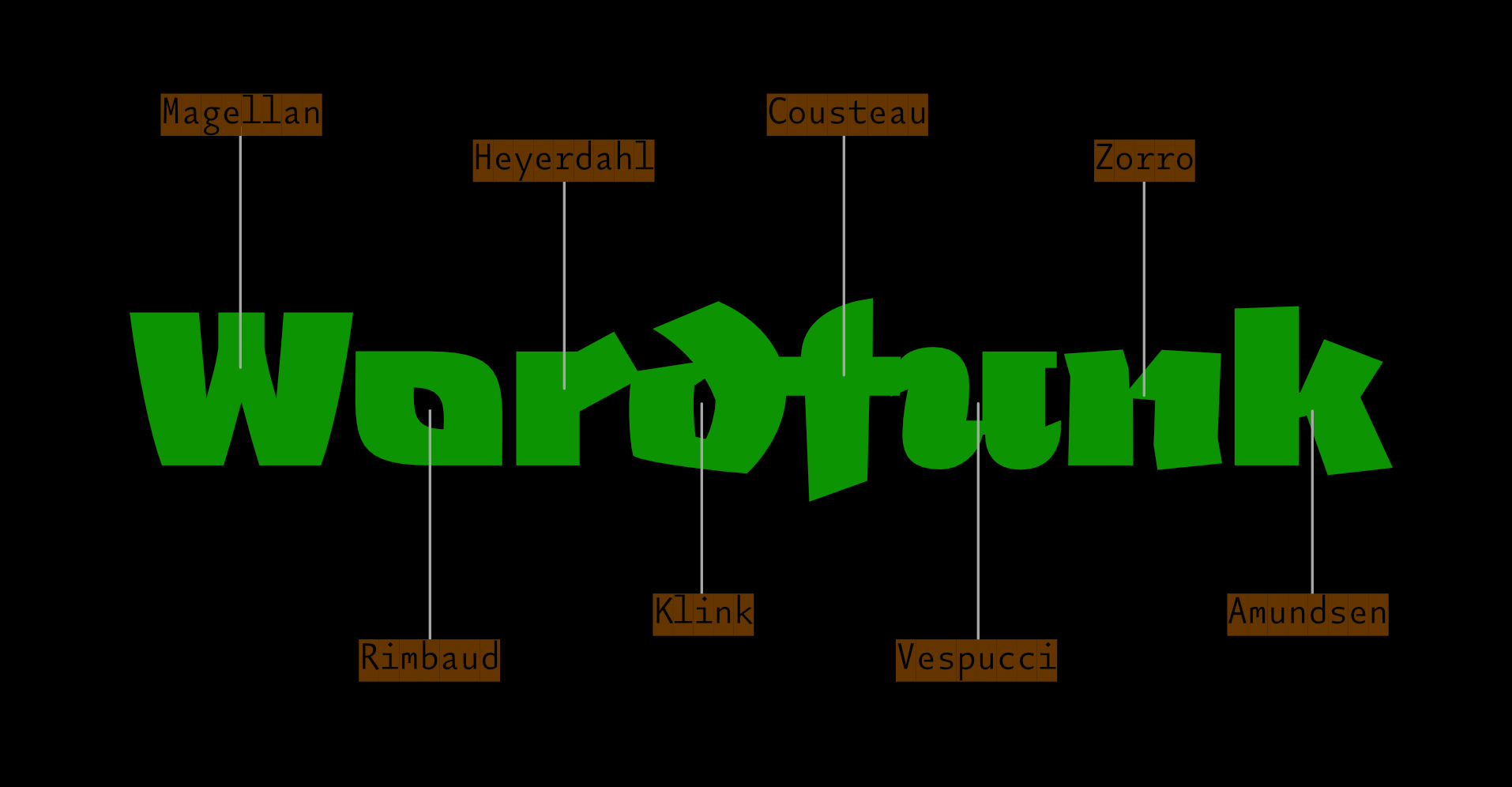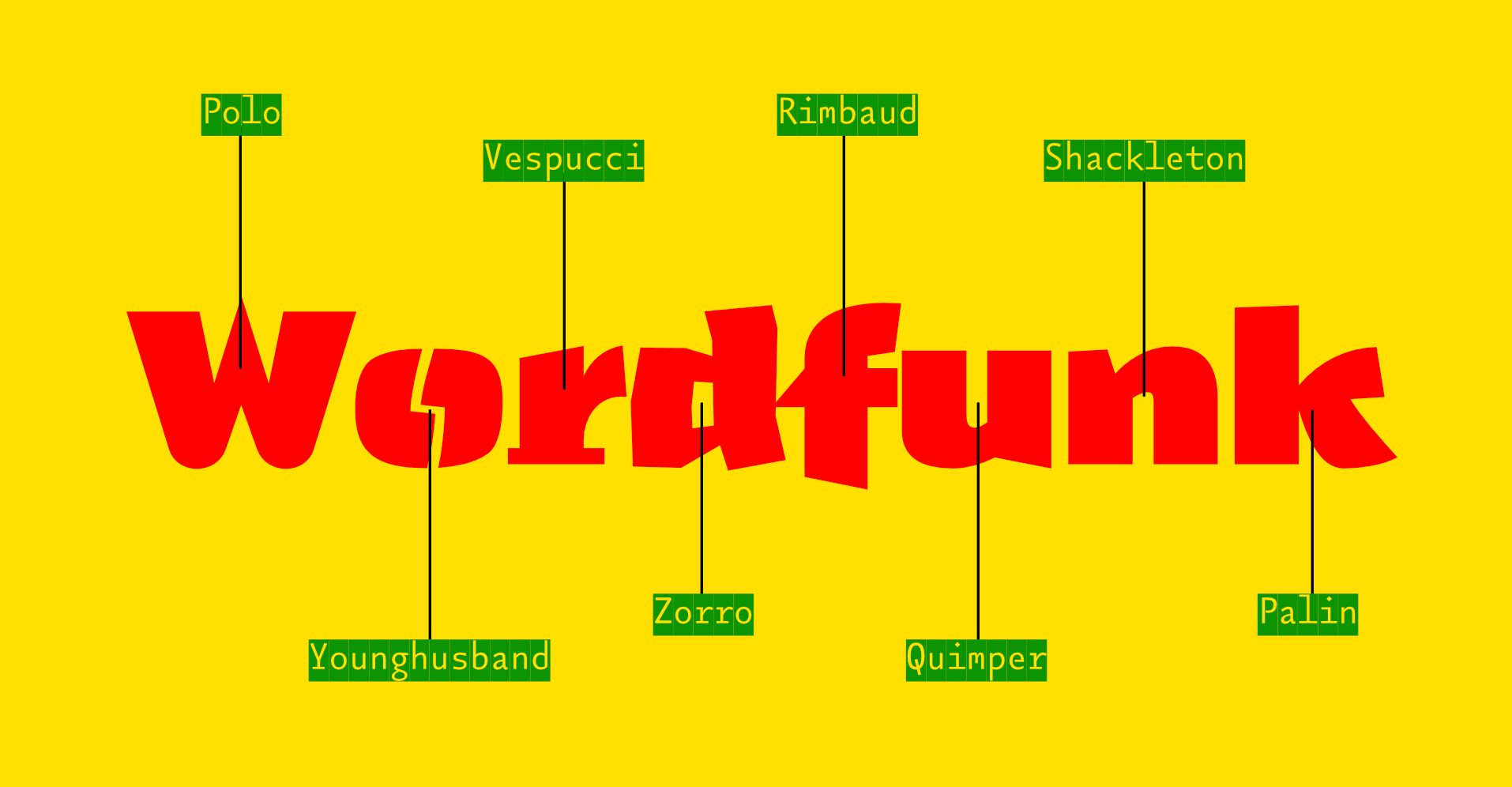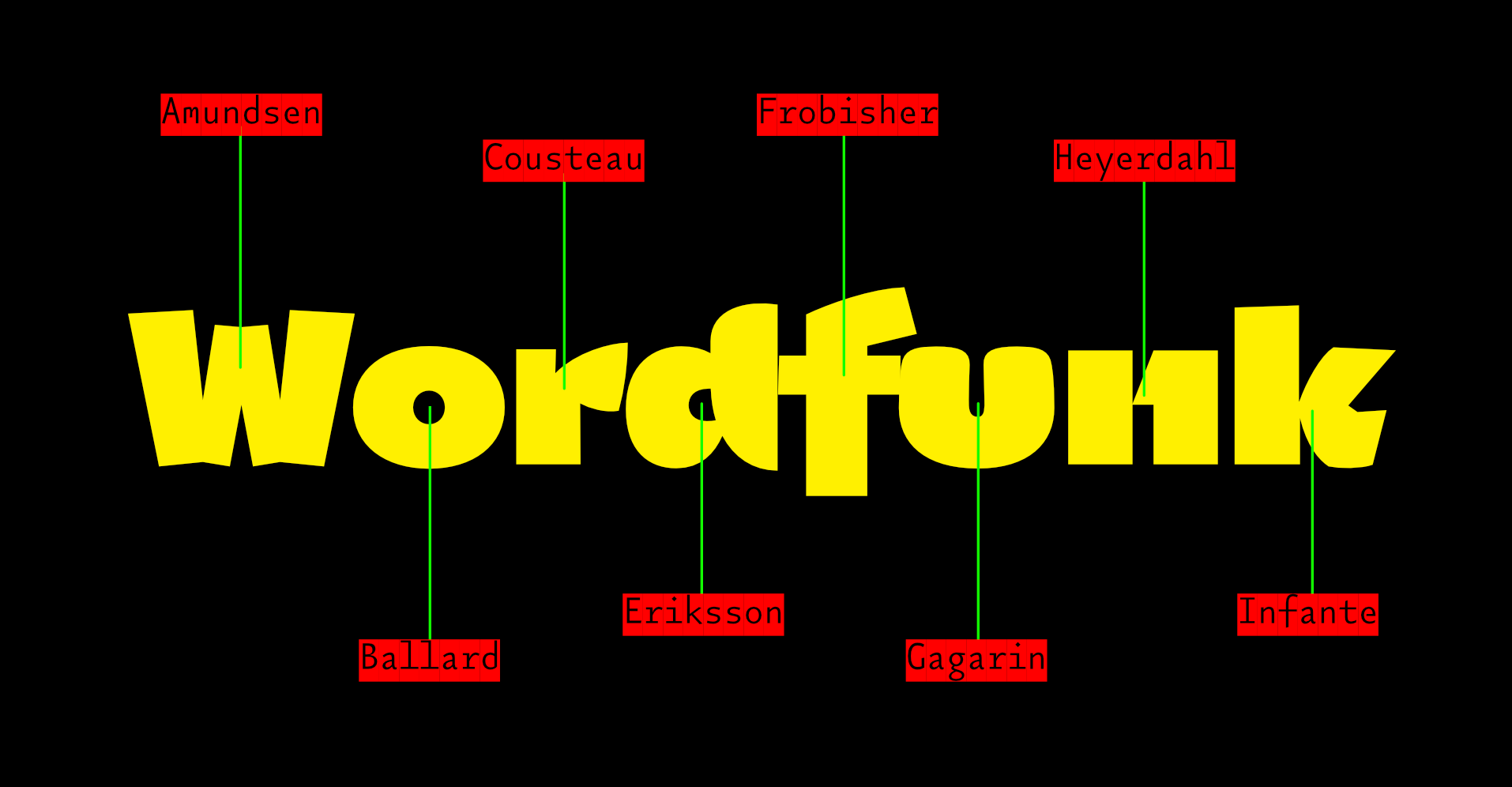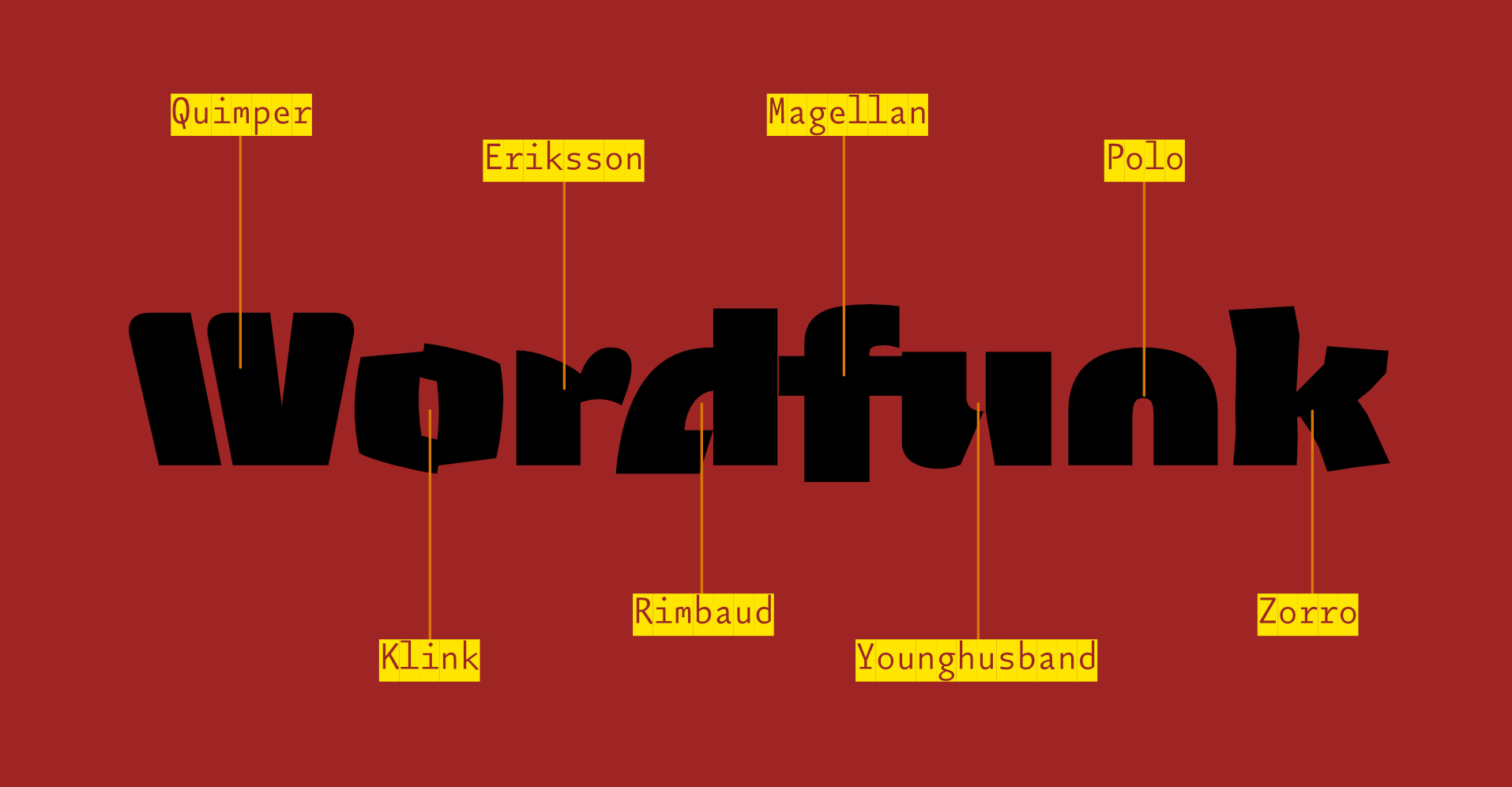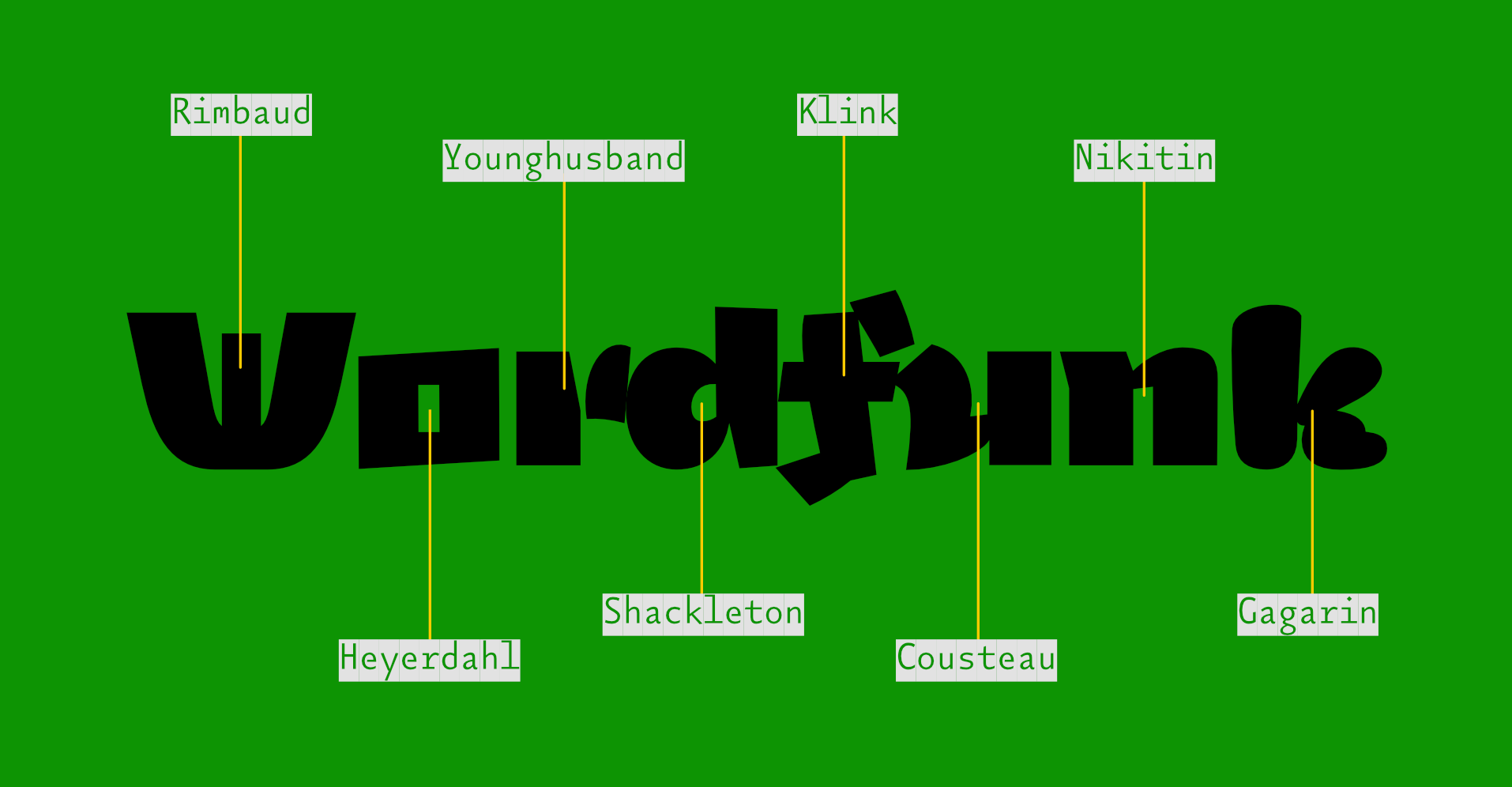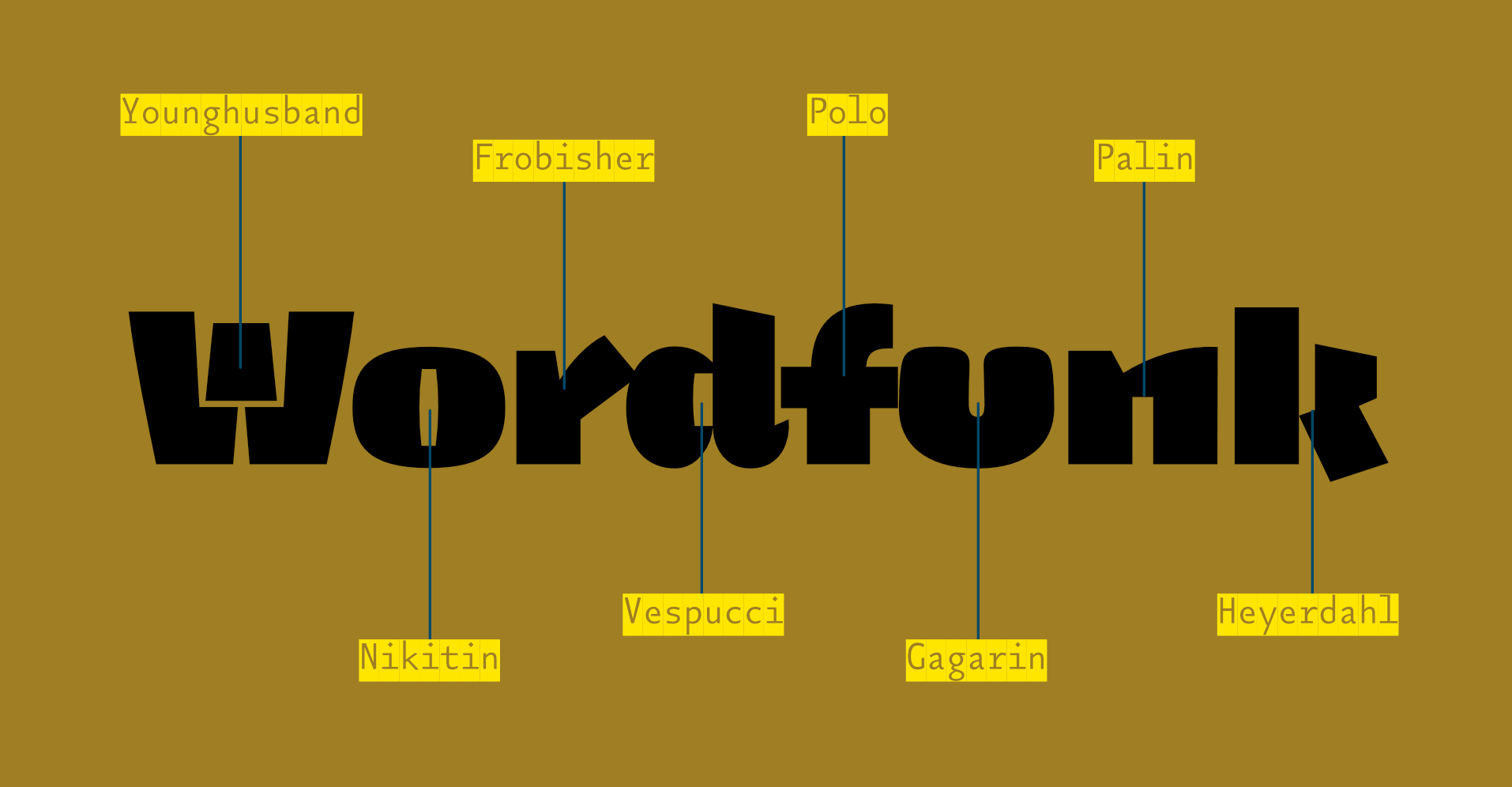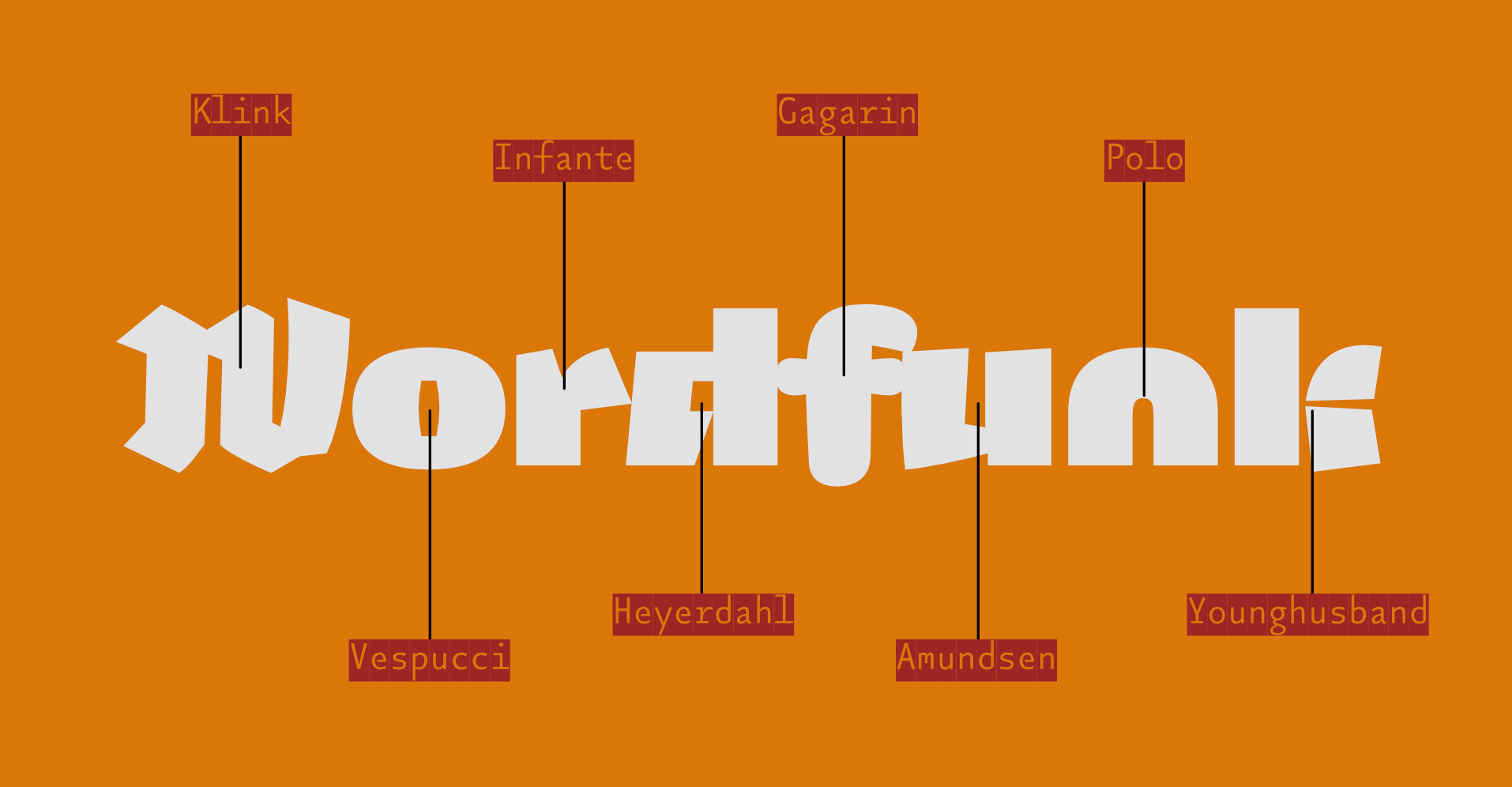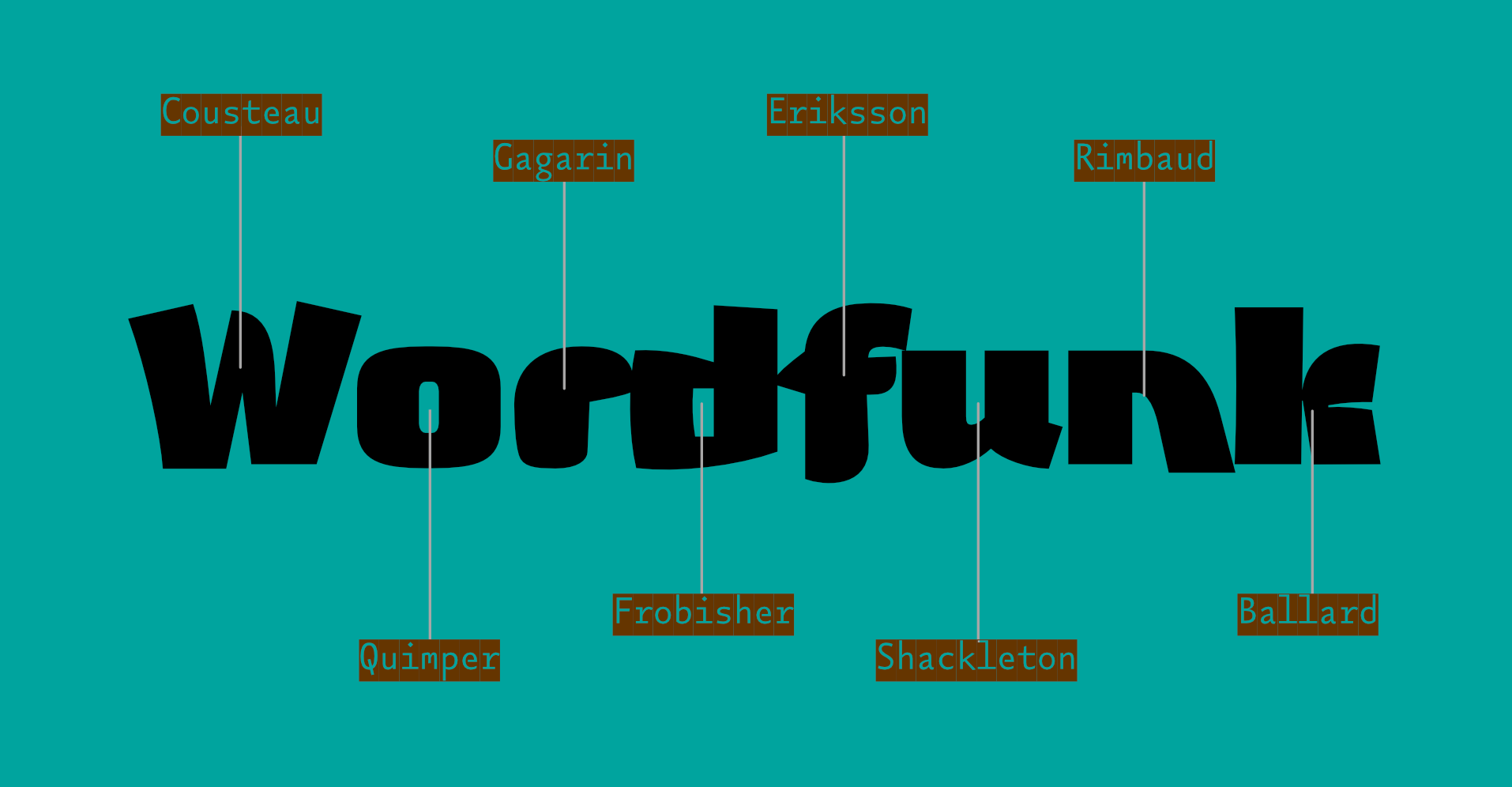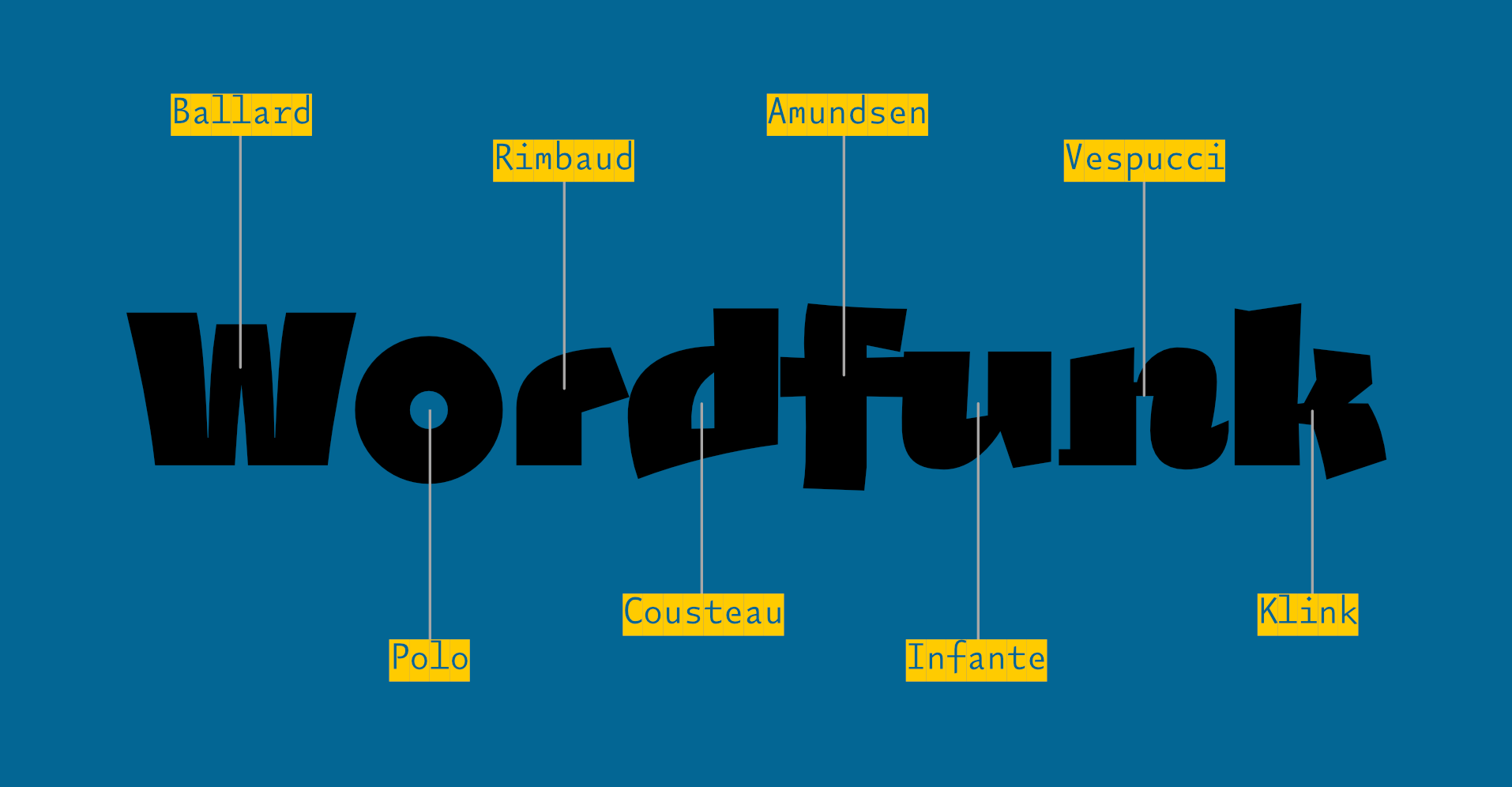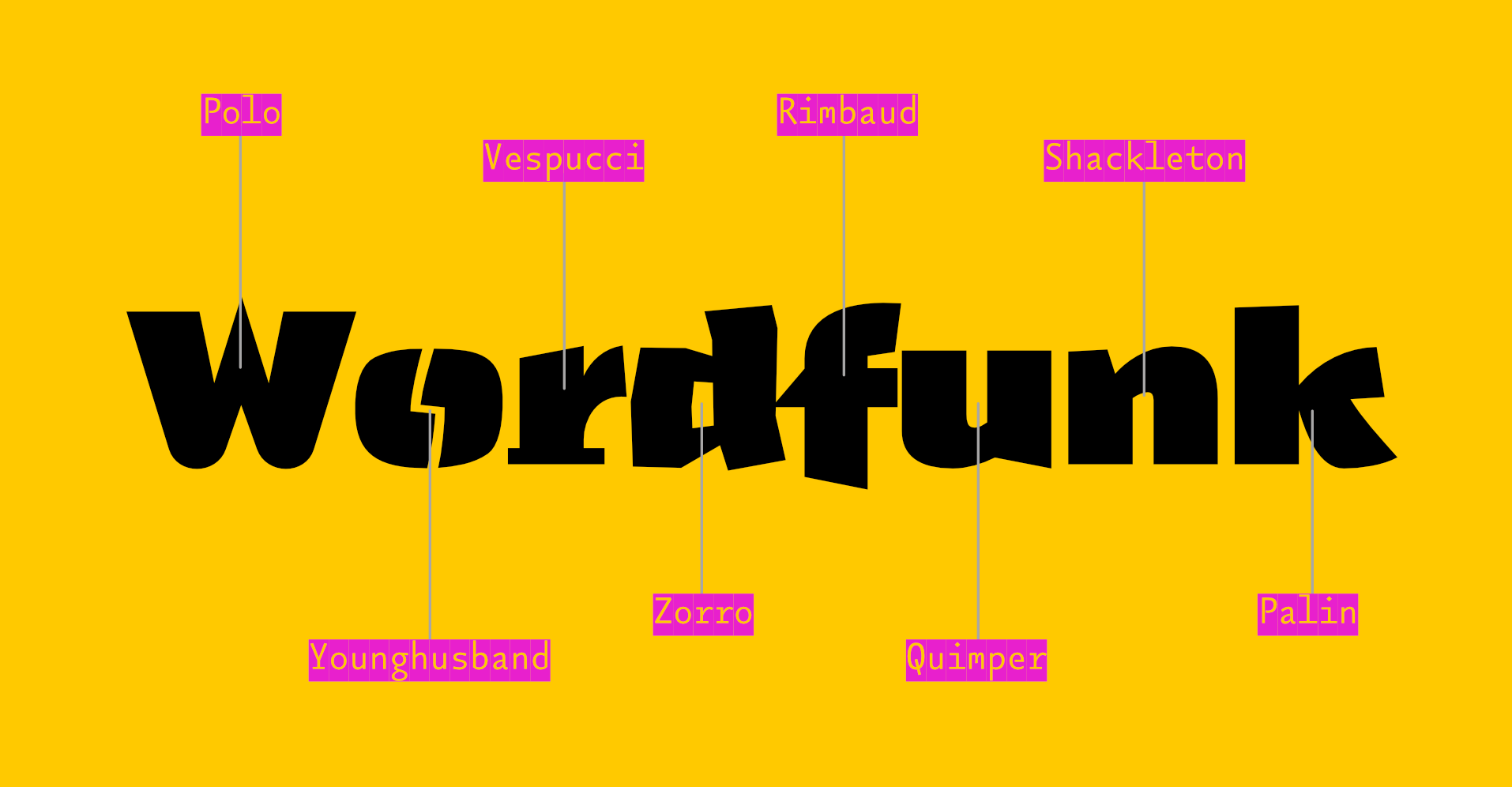
Explorers
Sometime in the 20th century, I sent a design to the Morisawa Typeface Competition. It won a prize. I called the typeface Vespucci (I suppose I had been reading something about the origin of America at the time.) You will be able to see the original design – as presented in Morisawa’s brochure – by scrolling the gallery above ¶ At a later date, I found myself drawing more fat grotesques, and as I had named a similar design after an explorer, I carried on (sometimes naming a typeface is harder than designing it) ¶ There was no initial plan to make these designs belong together, I was just enjoying the drawing. The collection of sketches eventually grew to the point where a stapler was required, and so it seemed like a good idea to try and impose some order on them. Many of their base characteristics were brought into some kind of alignment with each other, and they were forced to share an x-height and other vertical metrics (extenders [ascenders & descenders]) ¶ The years passed, and I continued messing about. I thought it would be nice for each character in the now 20+ designs to share the same widths, so that they could be interchanged to make some interesting interactions of shape. An A could be replaced with any of the other 19 A’s without interfering with the length of the word. I quickly abandoned this thought, realising the mind-numbing amount of work it would take ¶ Then a friend (Rutherford Craze) made the same suggestion. Oh Dear! ¶ And so it came to pass that I made all twenty a's the same width; and the g's; the R's; even the pilcrows and the spaces, and so on, and so on ¶ I apologise in advance for the absurdly high stack of type testers below (20, one for each design) but I would like you to play with all the designs to appreciate the subtleties. You will be able to set the same words above and below each other to make comparisons between the designs ¶ It is not possible to completely mix them up here on the site, but as this is one of the purposes of the family, I have put some examples of my own mixing in the gallery above. There are also a series of specimen booklets you can download: Book №1 contains stories about the various explorers that the typefaces are named for. Book №2 contains a more visceral, visual and postery display of the family. Book №3 uses the letters to show the astonishing linguistic richness in Cornish place names: the place where the letters were formed ¶ There are also some nice little viddys (on that Instagram that they have now) that show some of the animation potential, here’s one and here’s another and here’s even another